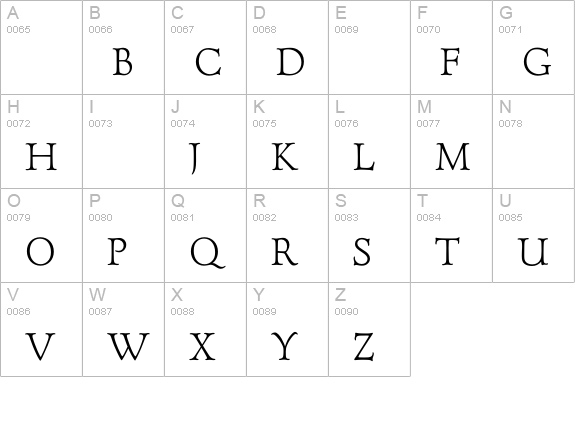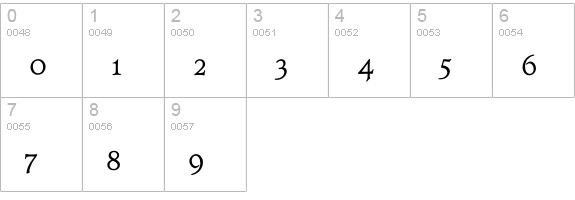
ForumTitlingMediumOldStyleFigs Font Details
ForumTitlingMediumOldStyleFigs font is a classic and elegant typeface that exudes sophistication and charm. With its medium weight and old-style figures, this font is perfect for adding a touch of vintage flair to your designs. The intricate details and unique flourishes of ForumTitlingMediumOldStyleFigs make it a standout choice for titles, headings, and decorative elements. Best of all, ForumTitlingMediumOldStyleFigs font is available for free download at FontsMarket.com. Whether you're working on a personal project or a professional design, this font offers versatility and style without any cost. Don't miss out on the opportunity to enhance your work with the timeless appeal of ForumTitlingMediumOldStyleFigs font. Download it today and elevate your designs to the next level.